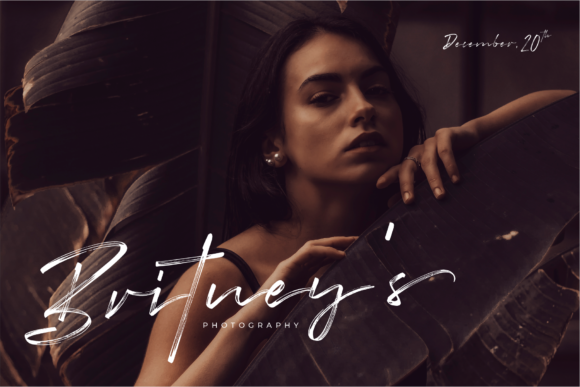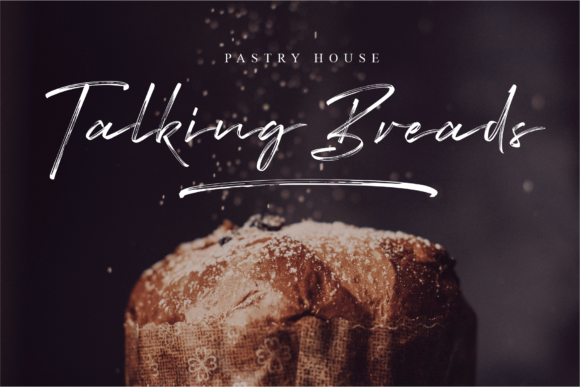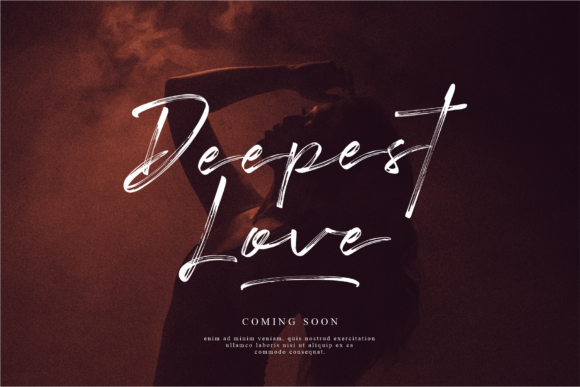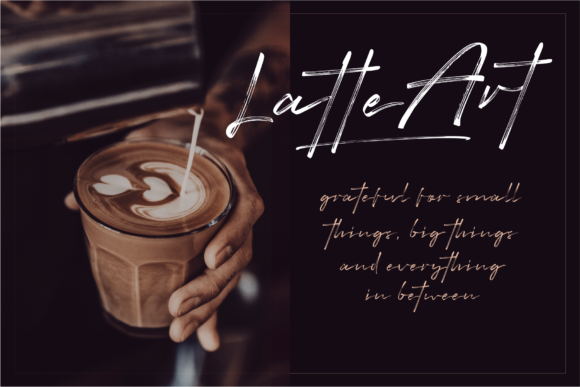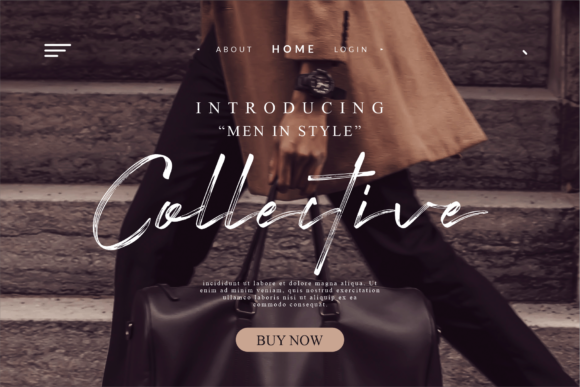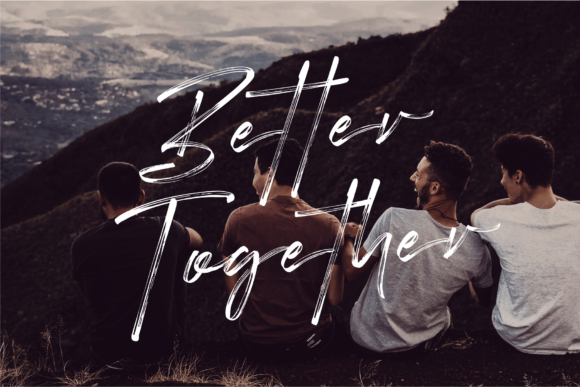
Introduction to Rock Better Font
Rock Better is a cool, flowing and brushed script font.
Trendy and stylish, this font will elevate each of your creations Rock Better is PUA encoded which means you can access all of the glyphs and swashes with ease.
Key Features of Rock Better Font